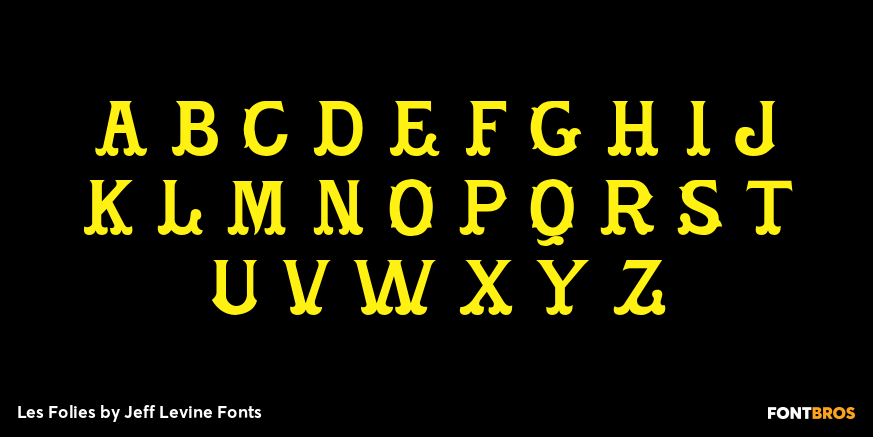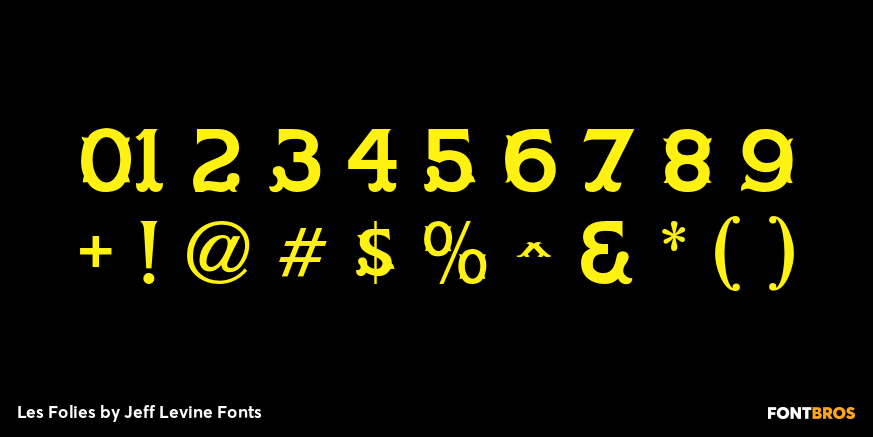
Les Folies
An early 20th-Century French lettering book displayed at an online image sharing site stood out with a hand-lettered version of a classic Victorian font. The lettering - a spur serif top and a split serif (or "Western-style") bottom is the basis for Jeff Levine's Les Folies JNL. All of the nuances and idiosyncracies of hand-lettering are left intact.